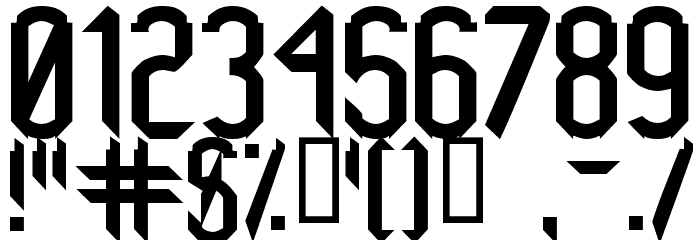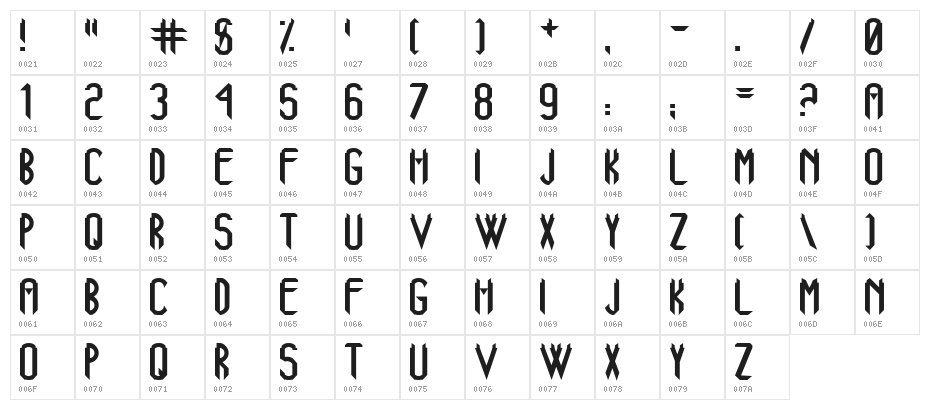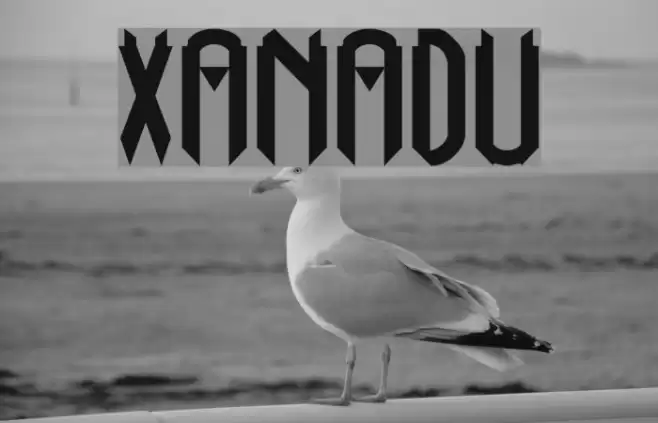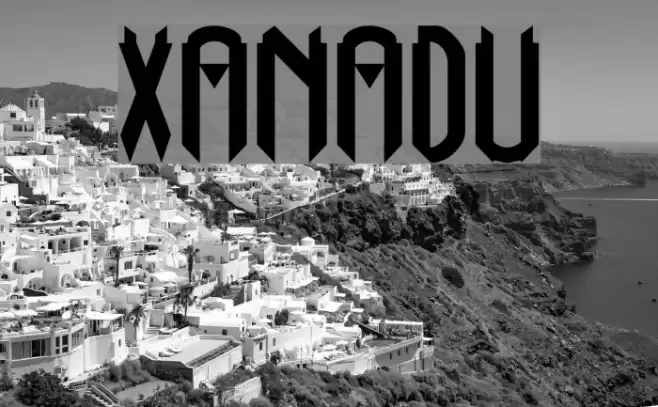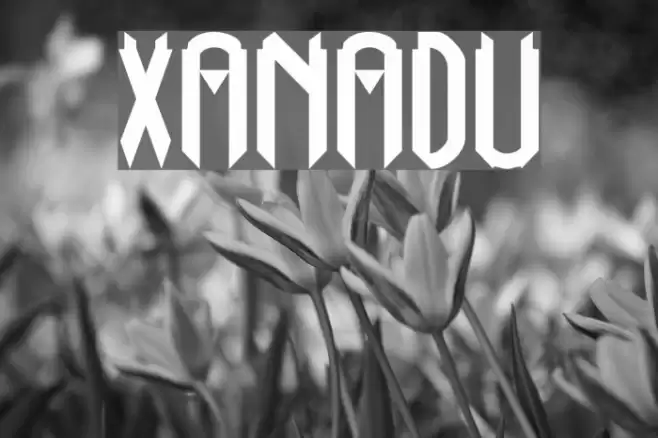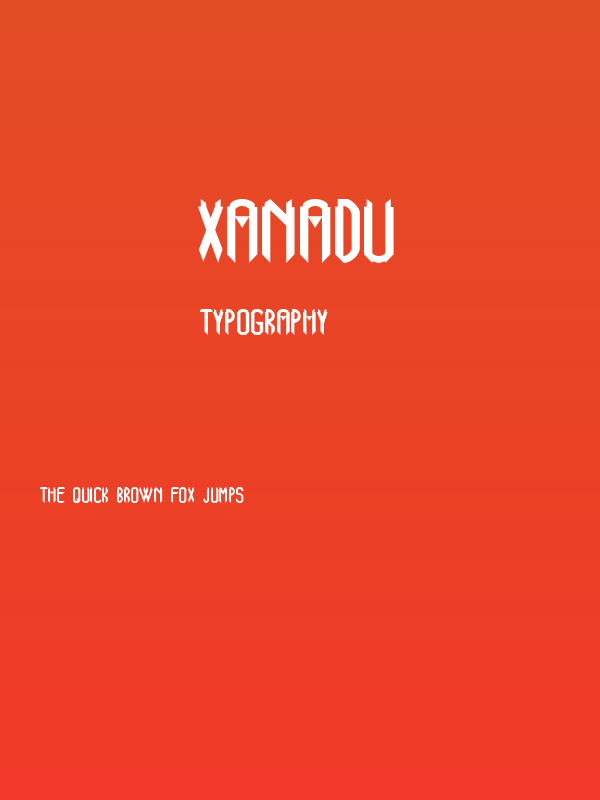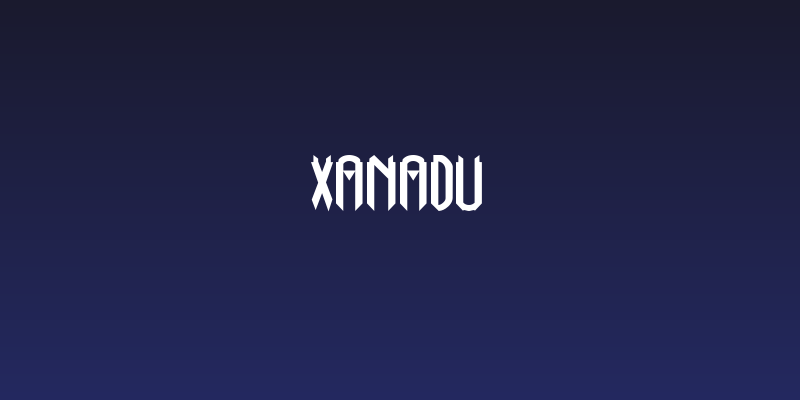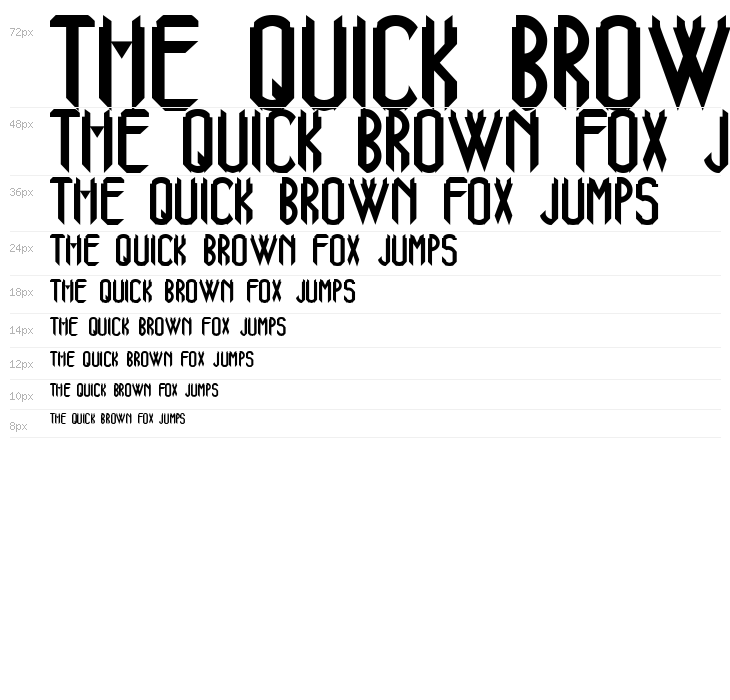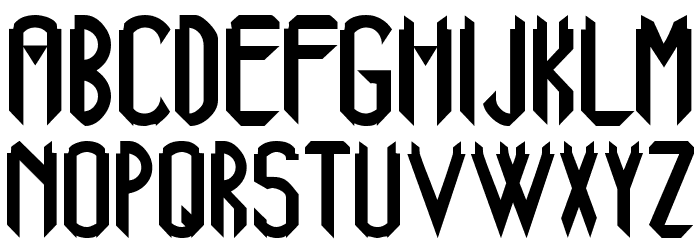
Xanadu Font
Xanadu Description
This font features a bold, angular design with sharp edges and a geometric structure. The uppercase letters are particularly striking, with a strong presence and a futuristic feel. The lowercase letters maintain the same angular style, providing a cohesive look throughout the typeface. Numbers and special characters are designed to match the boldness and sharpness of the alphabet, making them stand out. The overall aesthetic is modern and dynamic, suitable for projects that require a strong visual impact.
Proposed ProjectsIdeal for branding, posters, video game graphics, and any project needing a modern, impactful typeface.